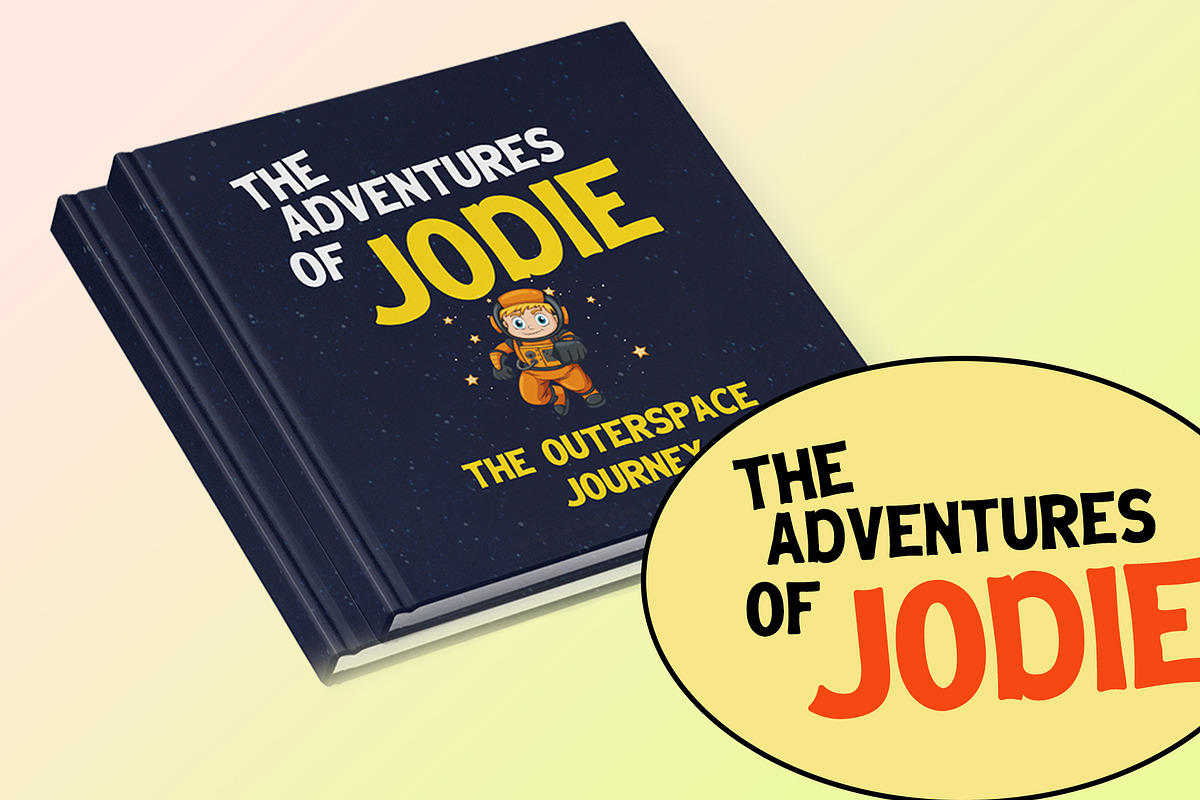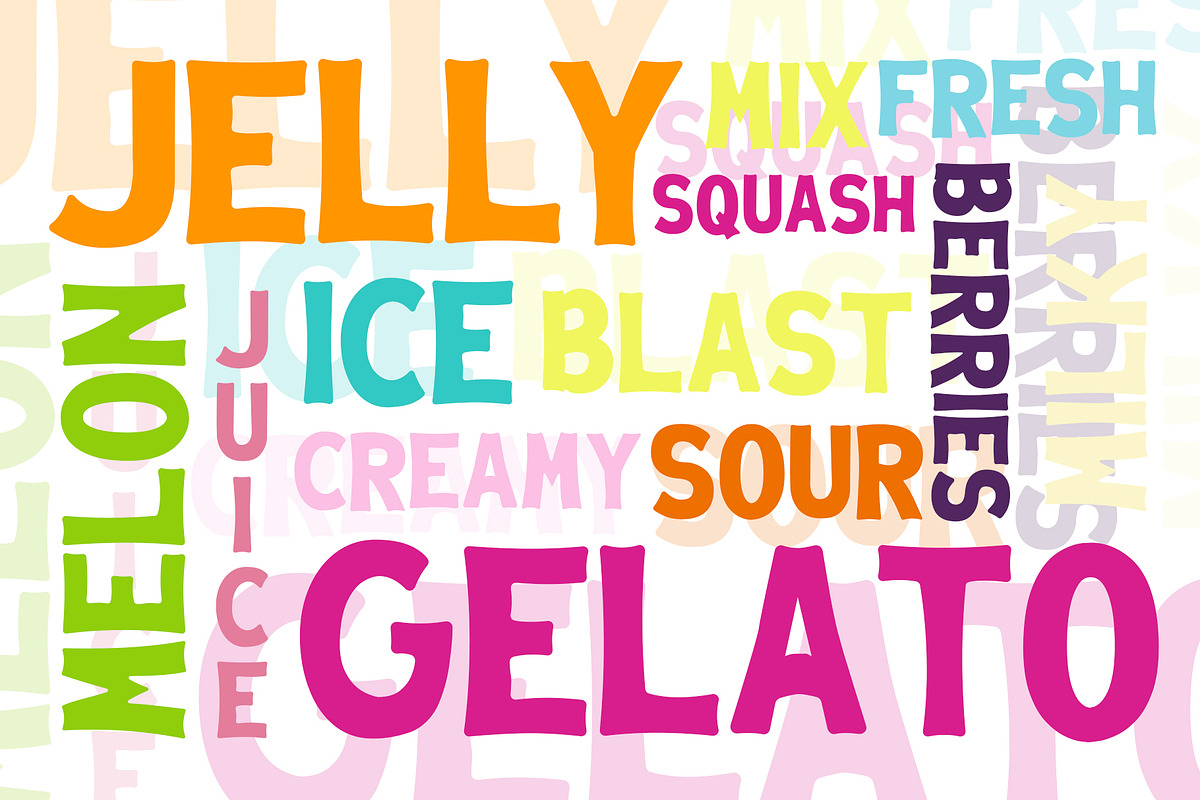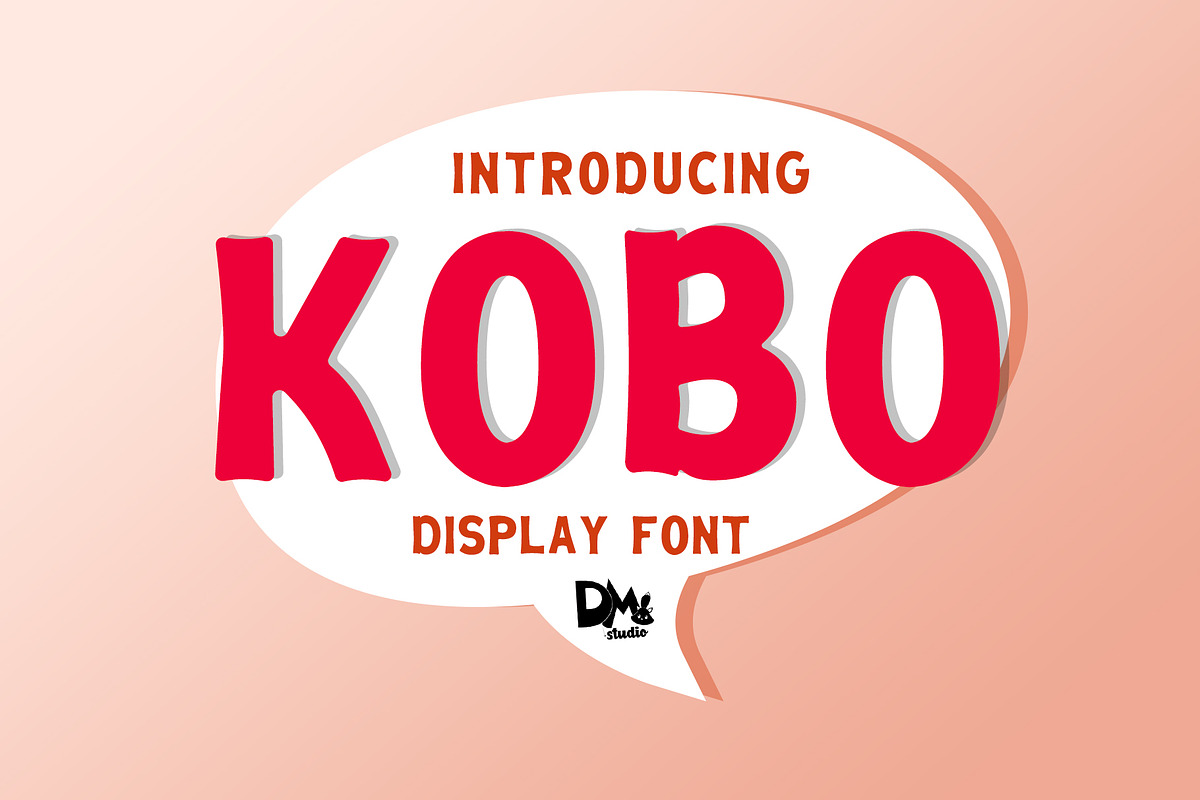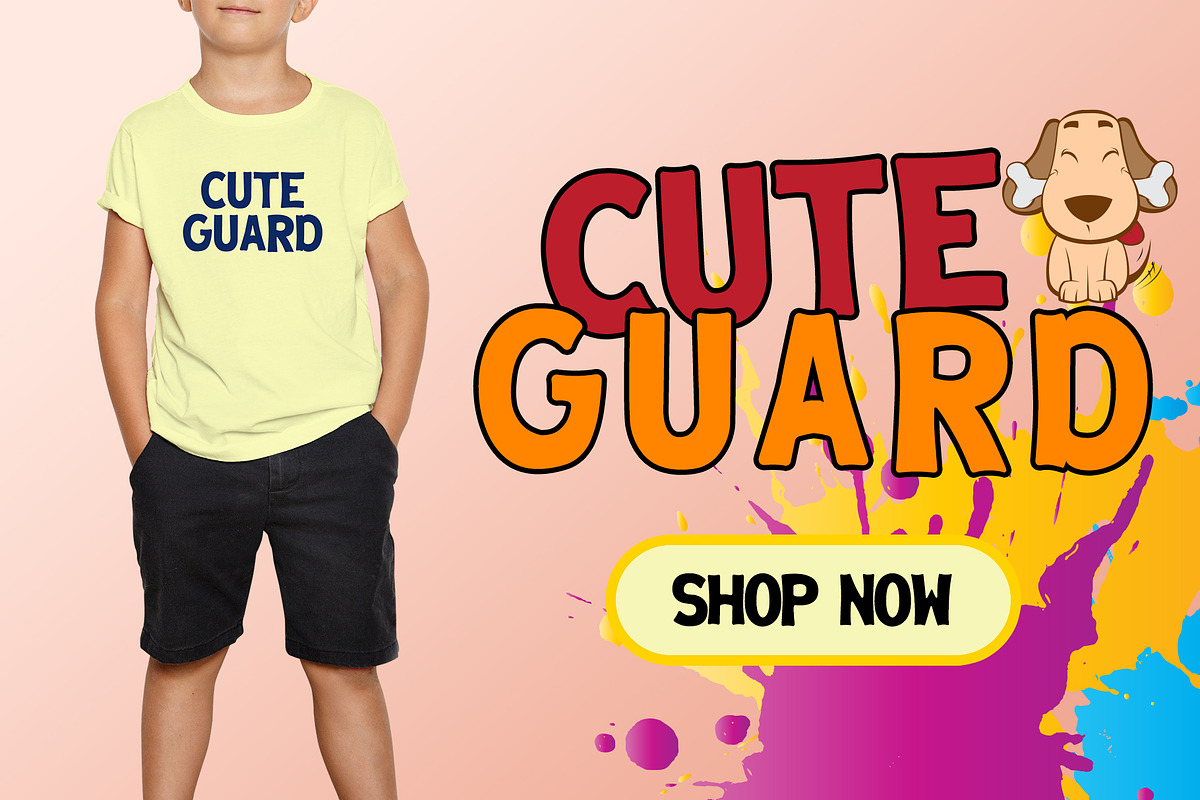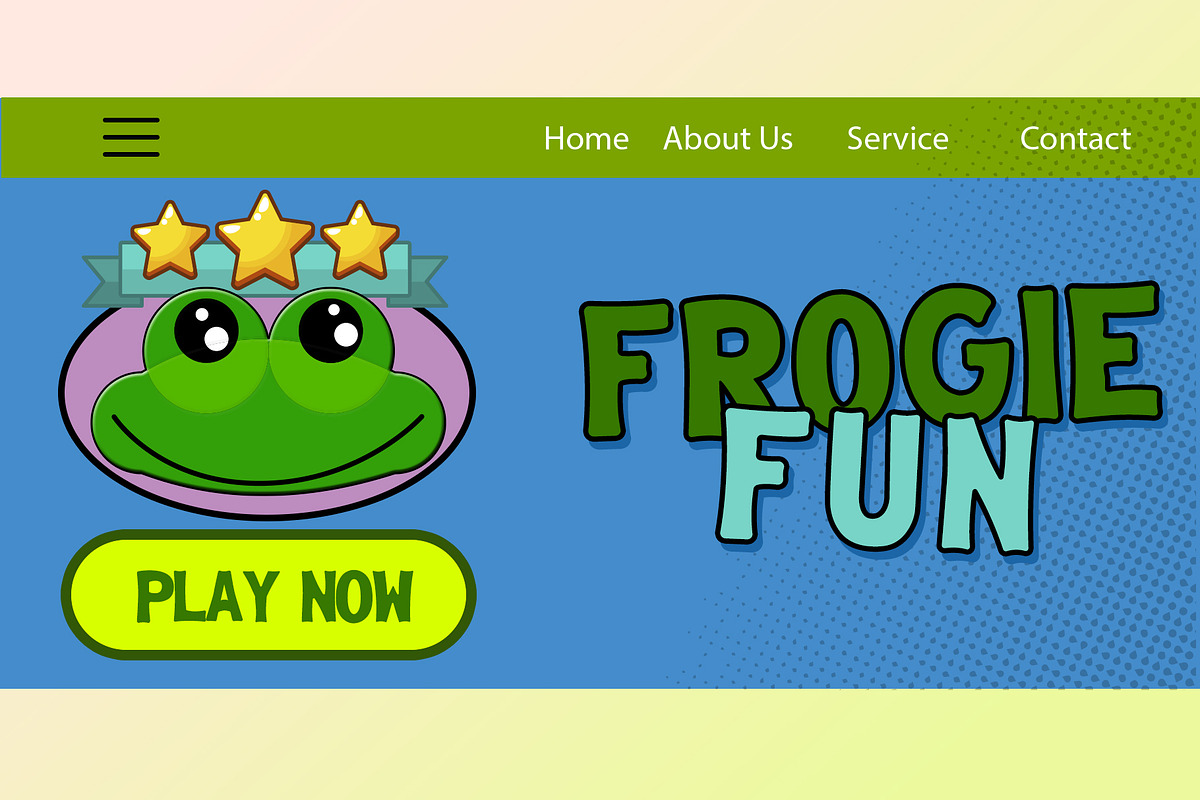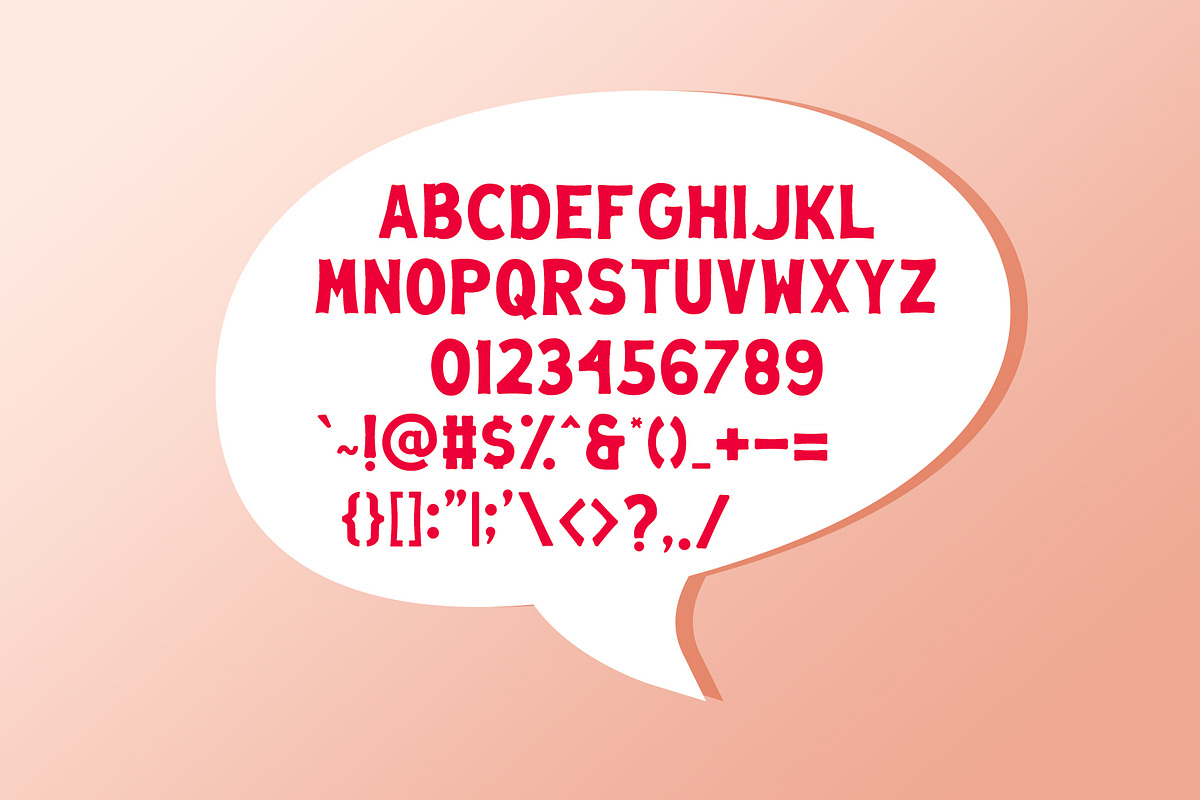
KOBO - FUN DISPLAY FONT
Introducing KOBO,The playful display sans! Great choice for every seasonal project, applications, printing, merchandise, advertising, packaging, digital project and much more!
ALL IN CAPS character set
KOBO - FUN DISPLAY FONT by Dm Studio fits naturally into Branding, posters, packaging, typography.